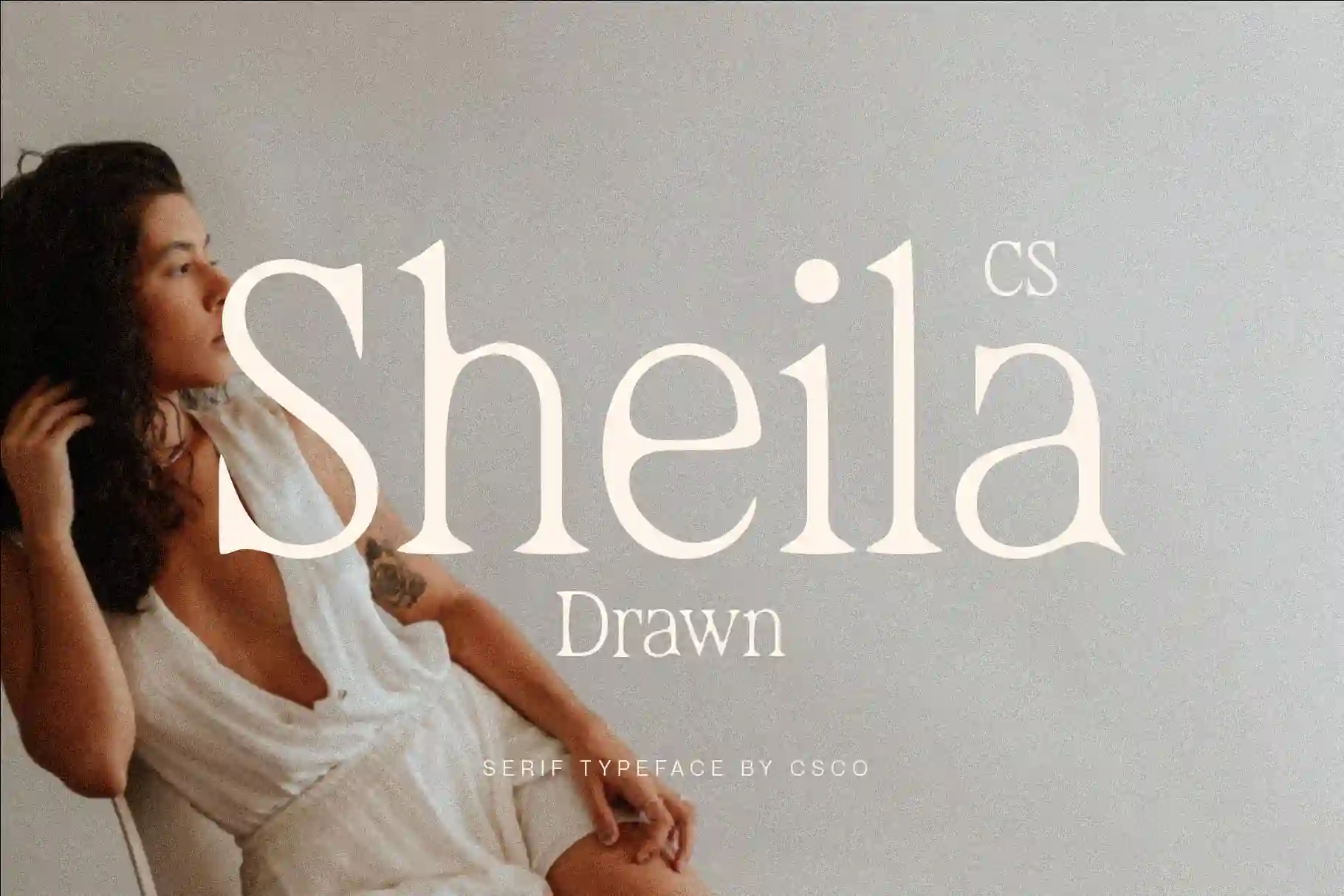
CS Sheila Drawn
CS Sheila Drawn – Handcrafted Serif with Ink-Overflow Texture and Vintage Drawn Style
Relaxed and Personal Feel
CS Sheila Drawn is a serif font designed with a drawn effect that gives it a warm, personal character. Each letter carries the impression of being handcrafted, offering a relaxed and approachable tone that makes it stand apart from traditional serif fonts.
Ink-Overflow Detailing
The unique texture of CS Sheila Drawn lies in its ink-overflow edges, where every corner feels alive and imperfect. This handcrafted irregularity adds authenticity and depth, evoking the look of old prints and written manuscripts. It’s this subtle imperfection that gives the font both charm and character.